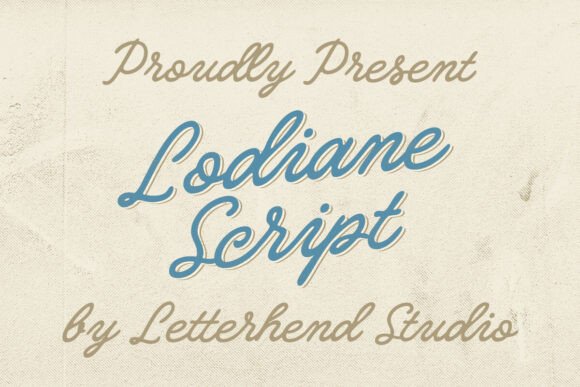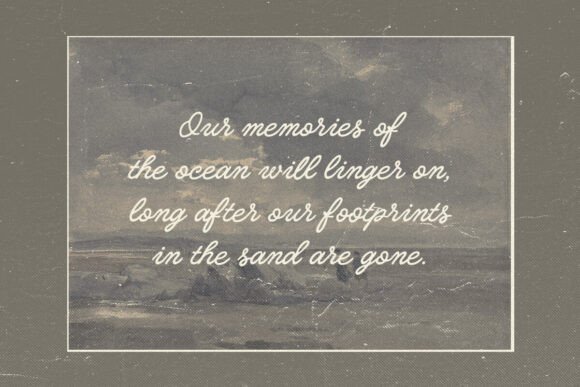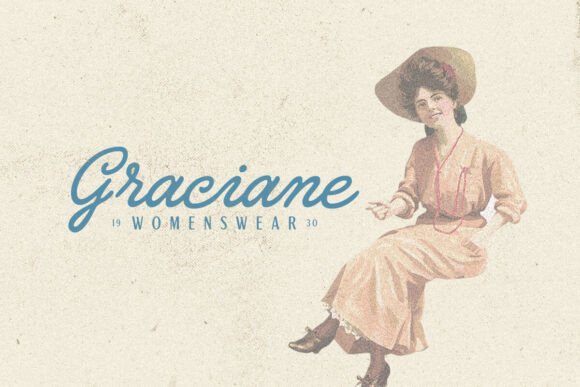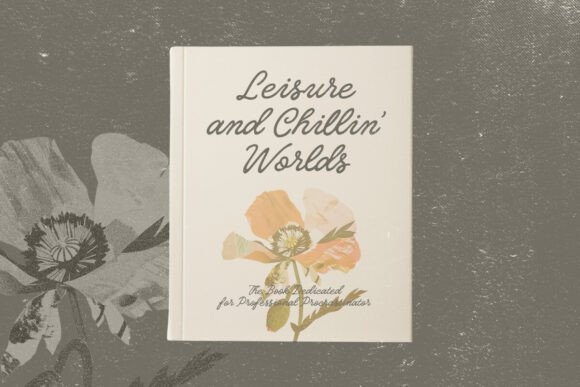
Lodiane Script Font
About the Lodiane Script Font
Welcome to the world of Lodiane Script Font, a typeface that will inspire your next great project. Lodiane Script is a vintage-inspired script font with elegant, flowing curves and a handcrafted feel. Its retro aesthetic, subtle shadowing, and smooth strokes make it perfect for branding, logos, packaging, invitations, and editorial design. With a nostalgic yet versatile charm, it’s ideal for projects that blend classic sophistication with a touch of rustic warmth.
Lodiane Script excels in applications requiring a touch of vintage charm and elegance, such as logos, wedding invitations, or short-form editorial pieces. Its handcrafted feel works beautifully for boutique brands, artisanal products, and projects emphasizing a nostalgic aesthetic. However, its decorative nature makes it less suitable for body text or UI elements where readability is paramount. Extended use can strain readability.
Pairing Lodiane Script with a clean sans-serif like Montserrat for body copy provides excellent contrast and readability. For a more formal feel, consider pairing it with a classic serif like Garamond. A geometric sans-serif like Futura could offer a modern counterpoint, balancing Lodiane’s vintage appeal with contemporary edge.
The overall personality of Lodiane Script is sophisticated yet approachable, blending elegance with a rustic warmth. It evokes a sense of nostalgia and handcrafted quality, making it ideal for brands that wish to convey authenticity and a touch of vintage charm.
Lodiane Script Font Usage Examples
Lodiane Script Font Example